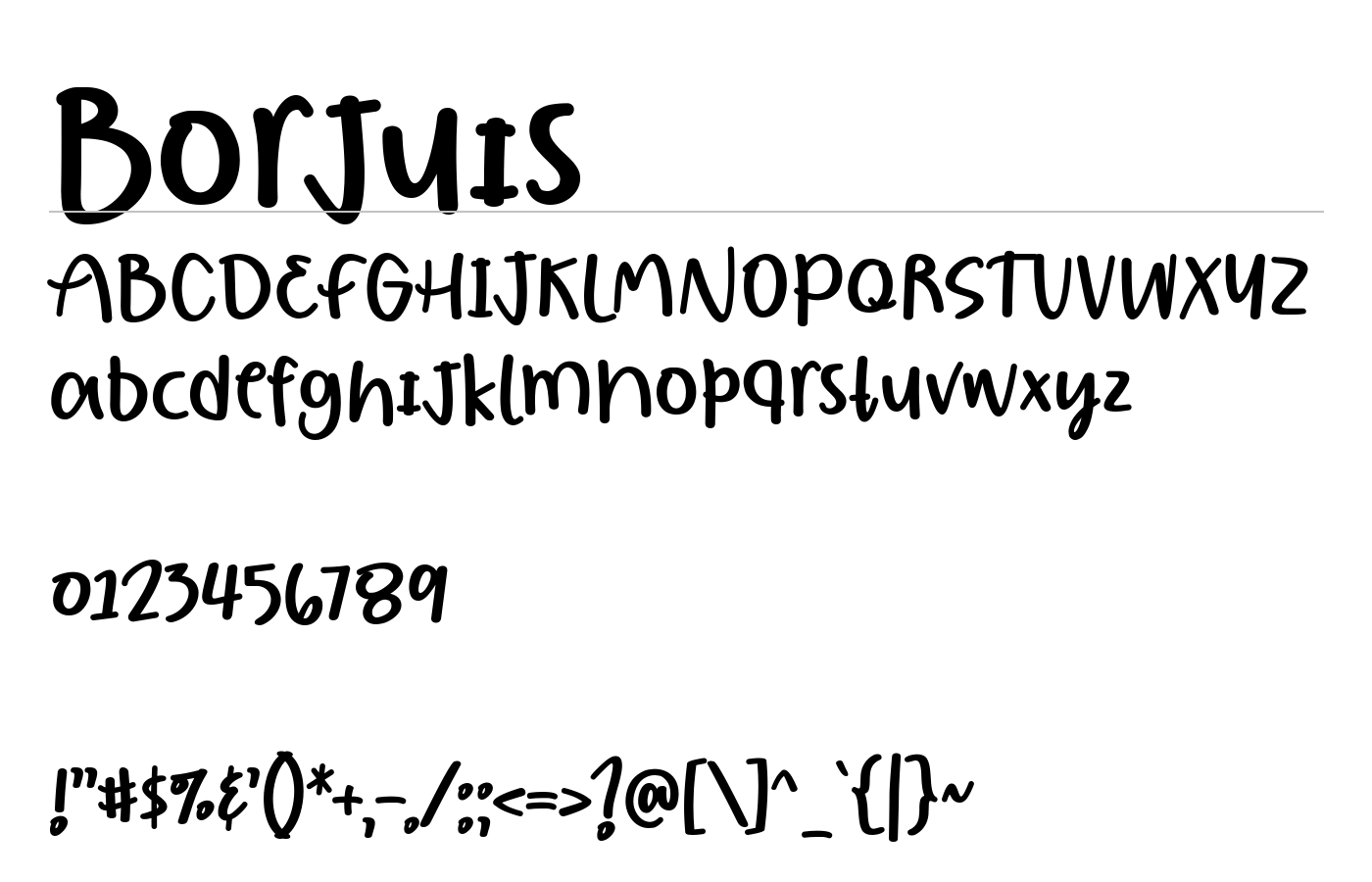
Borjuis is a playful, casual handwritten sans serif font with a friendly and approachable style. Its irregular, slightly rounded letterforms and moderate x-height give it a warm, informal feel, making it perfect for creative projects, children's materials, and brands seeking a fun, personal touch. This font works well in headlines, logos, and packaging where a lively and cheerful personality is desired.
Borjuis Font